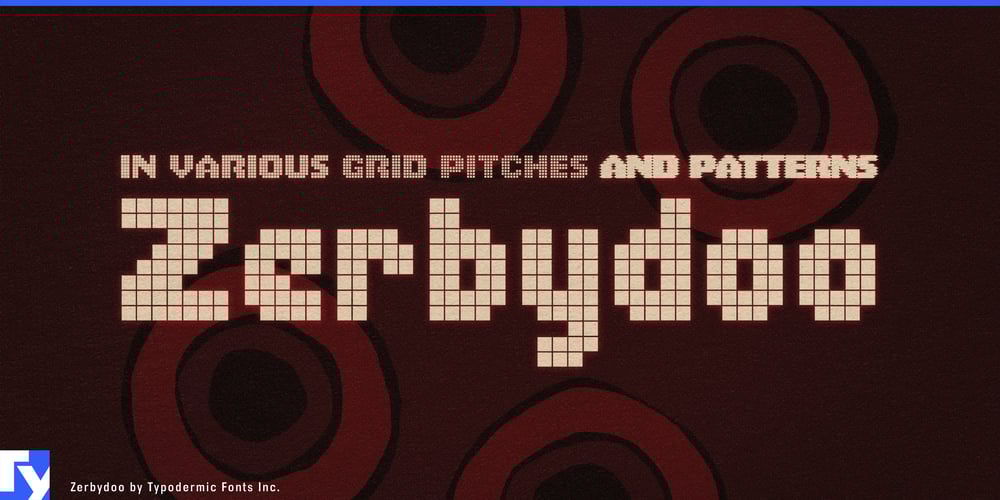
Zerbydoo Font Family was designed by Ray Larabie and published by Typodermic. Zerbydoo contains 8 styles and family package options. Greetings, fellow pixel pushers and joystick jockeys! Prepare to insert your typographic quarters into Zerbydoo, the font that’s about to take your designs on a totally radical 8-bit adventure. It’s a time machine calibrated to 1983, ready to transport your eyeballs straight to the golden age of bleeping, blinking arcade cabinets.Zerbydoo’s simulated bitmap design isn’t just gnarly—it’s practically radioactive with nostalgia. Each chunky, bold letter packs more punch than a fully charged Pac-Man, ready to gobble up boring designs and spit out pure, unadulterated awesomeness. It’s like someone took the essence of every classic coin-op and poured it into a font foundry. But hold onto your pocket protectors, because Zerbydoo’s got more tricks up its sleeve than a Dungeons & Dragons dungeon master. Its variable pixel gaps aren’t just a feature—they’re a cheat code for unlocking maximum visual impact. And with kerning locked to full pixel increments, Zerbydoo maintains its authenticity harder than a hardcore gamer defends their high score.Don’t think Zerbydoo is just another one-trick pony (or should we say, one-trick Q*bert?). This font speaks more languages than that know-it-all kid who hung out at the arcade and claimed he could beat every game blindfolded. From the fjords of Norway to the discotecas of Spain, Zerbydoo ensures your retro message comes through loud and clear, no matter what language you’re coding in.So whether you’re designing the next big indie game sensation, creating graphics for your retro tech YouTube channel, or just want to add some pixelated pizzazz to your D&D character sheet, Zerbydoo is your ticket to the top of the leaderboard.